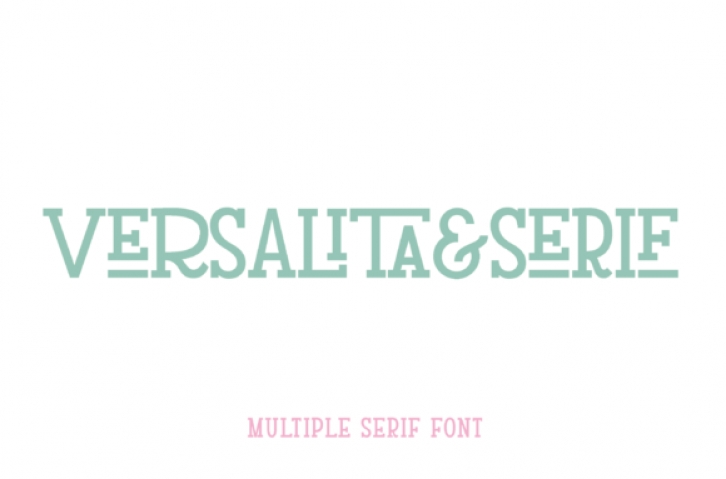
Versalita&Serif simplifies elegance into one truly outstanding serif font. Whether you’re looking for fonts for Instagram or calligraphy scripts for DIY projects, this font will turn any creative idea into a true piece of art!